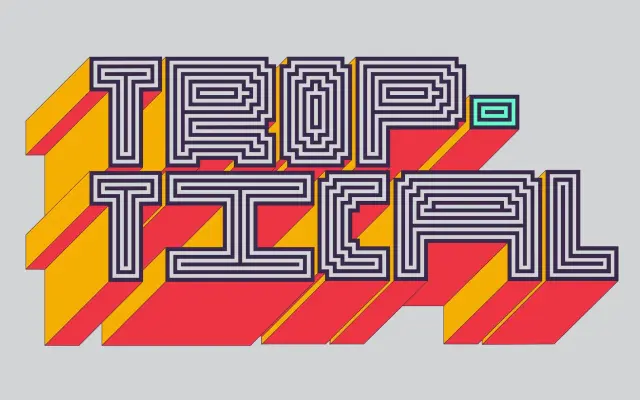
Troptical
In-House Intl · Alexander Wright
A multilinear display typeface inspired by op-art and Latin American geometry, built from concentric lines and modular construction across 45 fonts.
Designed by Alexander Wright for In-House, Troptical draws on the op-art scene and geometric design traditions of Caracas, using concentric stripes and angular letterforms to generate visual rhythm and movement. The family spans three styles (standard, square and round) across five widths and three weights, with character widths standardised across styles so that mixing and matching produces consistent optical effects. Each style is also available as a variable font, and the glyph set includes Spanish diacritics including the eñe.
Troptical is a display typeface built from concentric lines and angular, modular construction, drawing on op-art geometry and Latin American design traditions. Its kinetic, stripes-based aesthetic places it firmly in the display category with no meaningful connection to text type conventions.